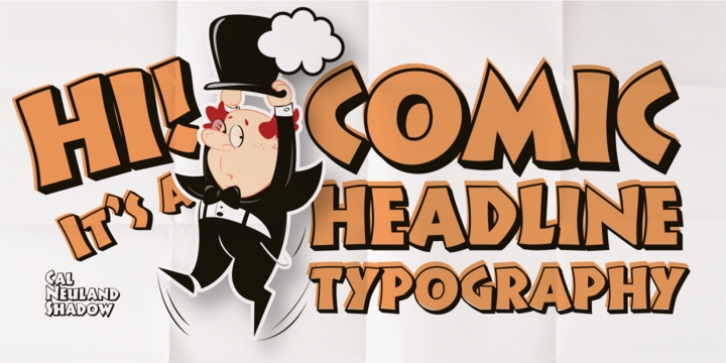
Publisher: Posterizer KG
Calligrapher Neuland Shadow, is shadow version of Cal Neuland Bold. Font is ideal for comic headlines and the other funny things. Contains all the Latin, Cyrillic and Greek glyphs.